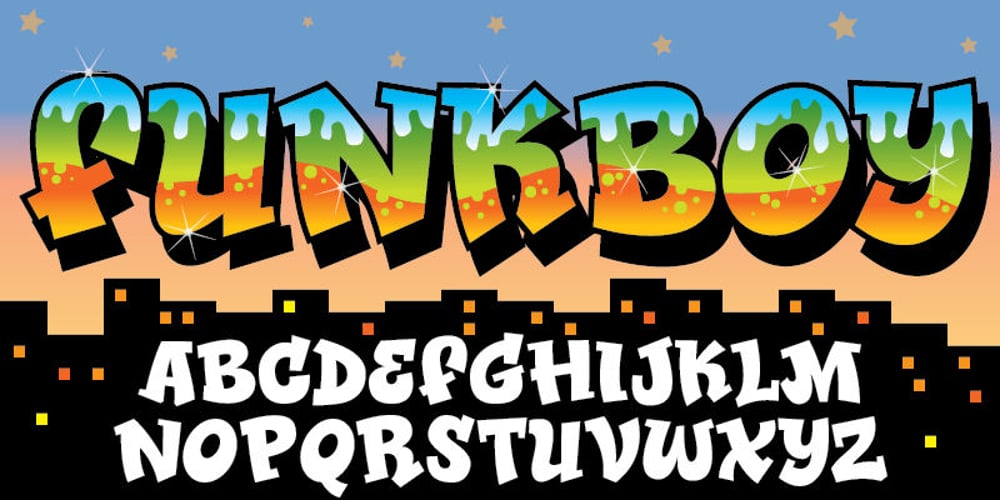
Funkboy
Funkboy font
Funkboy Font Family was designed by Jakob Fischer and published by PizzaDude.dk. Funkboy contains 1 styles and family package options. Funkboy looks like something that was made 20 years ago. You know, when Grandmaster Flash was scratching to the beat and graffiti was totally underground. Funkboy was made to look 100% oldschool, and now you can make your own bad-boy oldschool graffiti, using your computer! Comes with two hard knock alternate letters: the peace ‘o’ + the heart dotted ‘i’ You will need to use OpenType supporting applications to use the autoligatures.